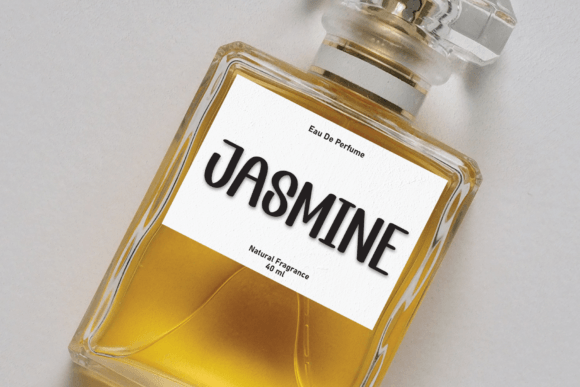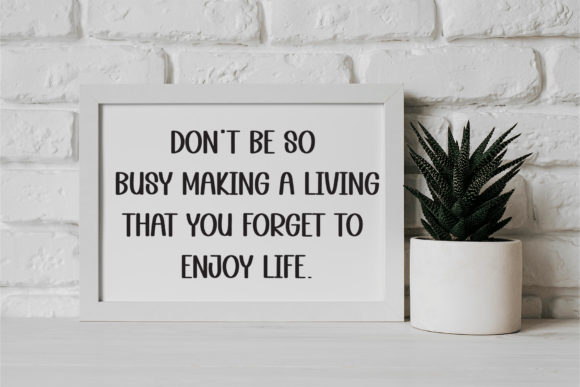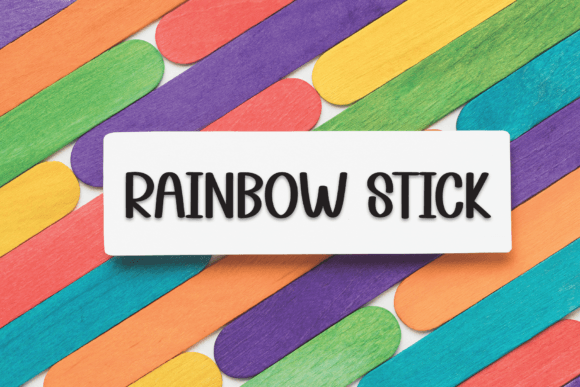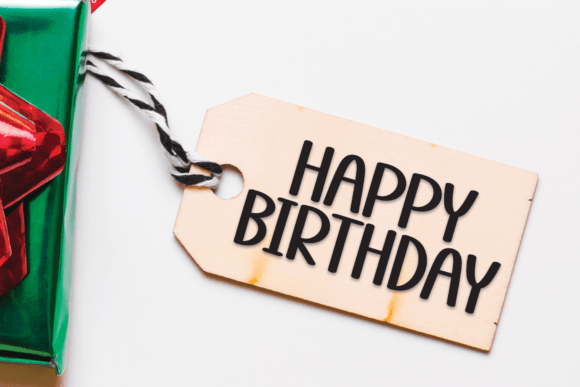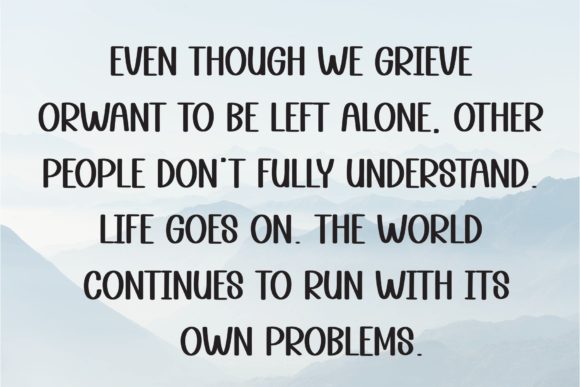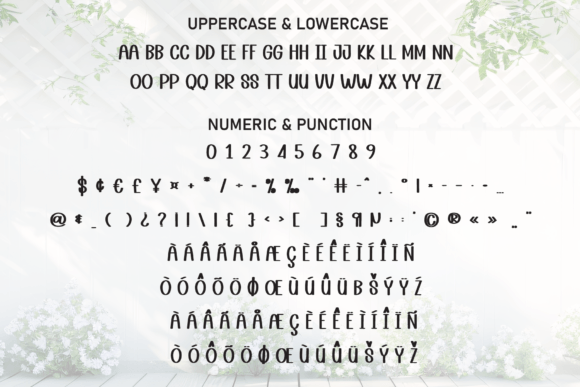
Garden Font: The Sweetest Addition to Your Design Collection
Are you tired of using the same old fonts in your designs? Do you want to add a touch of whimsy and playfulness to your projects? Look no further than the Garden Font, a charming and personable sans-serif font that’s sure to delight. In this article, we’ll introduce you to this fabulous font, explore its features, and show you how it can elevate your designs to the next level.
A Delightful Blend of Sweetness and Friendliness
The Garden Font is a captivating sans-serif font that exudes cuteness and fun. Its unique design makes it perfect for adding a touch of personality to your designs. Whether you’re creating wedding invitations, greeting cards, or any other type of design, this font is sure to make it stand out. With its delightful blend of sweetness and friendliness, the Garden Font is the perfect choice for designers who want to create engaging and memorable designs.
Wedding invitations and greeting cards are special occasions that deserve a font that’s just as special. The Garden Font is designed to add a touch of elegance and sophistication to these types of designs, while also conveying a sense of joy and celebration. Its playful and whimsical design makes it perfect for:
- Wedding invitations and save-the-date cards
- Birthday cards and party invitations
- Holiday cards and gift tags
- Anniversary cards and love letters
Adding an Entertaining Touch to Your Designs
The Garden Font is not just limited to wedding invitations and greeting cards. Its versatility makes it perfect for adding an entertaining touch to any design. Whether you’re creating:
- Blog headers and titles
- Product labels and packaging
- Signs and banners
the Garden Font is sure to add a touch of personality and whimsy.
Effortlessly Infusing Charm into Your Designs
One of the best things about the Garden Font is how effortlessly it infuses charm into your designs. Its unique design makes it easy to pair with other fonts and design elements, creating a cohesive and visually appealing design. With the Garden Font, you can:
- Create engaging and memorable designs
- Add a touch of personality to your brand
- Make your designs stand out from the crowd
Magnify Your Design Potential
Key Features of the Garden Font
- Charming and personable sans-serif font
- Delightful blend of sweetness and friendliness
- Perfect for wedding invitations, greeting cards, and more
- Effortlessly infuses charm into your designs
- Versatile and easy to pair with other fonts and design elements
In conclusion, the Garden Font is a fabulous addition to any design collection. Its unique design, versatility, and charm make it perfect for adding a touch of personality to your designs. Whether you’re a designer or a crafter, the Garden Font is sure to elevate your designs to the next level. So why wait? Download the Garden Font today and start creating designs that are as sweet as they are memorable.